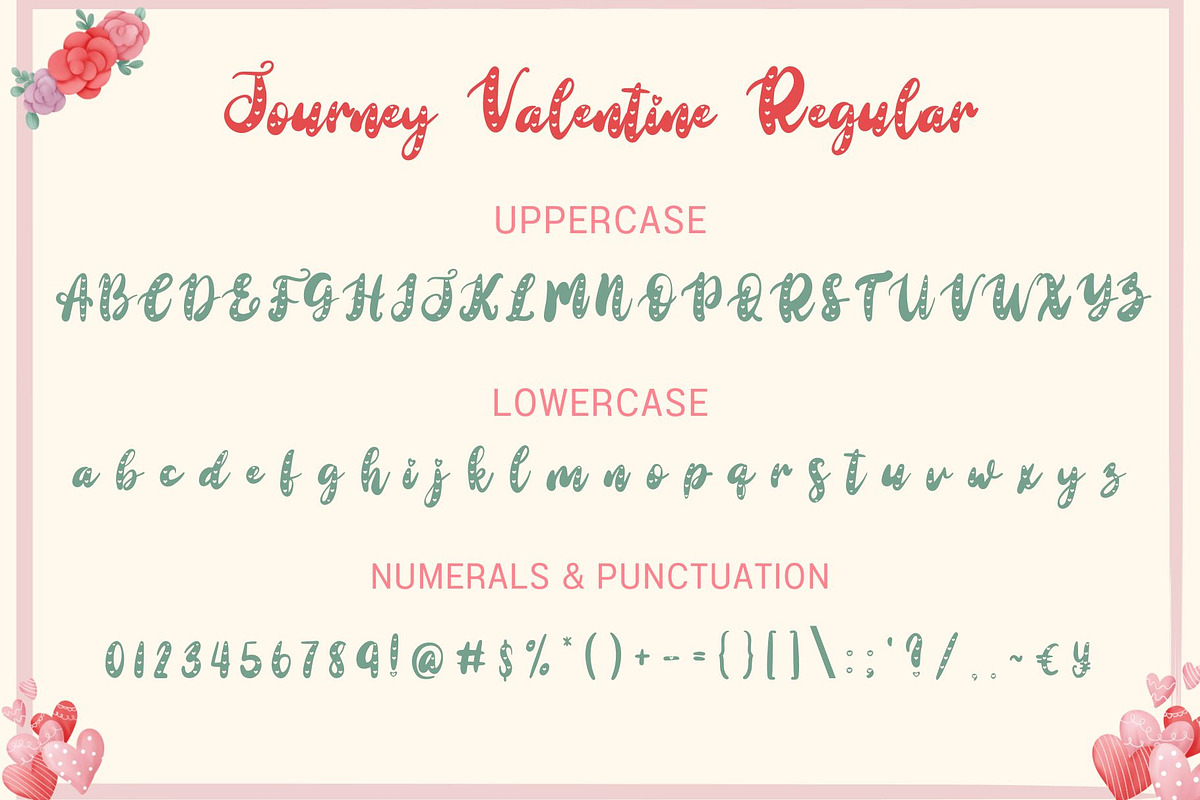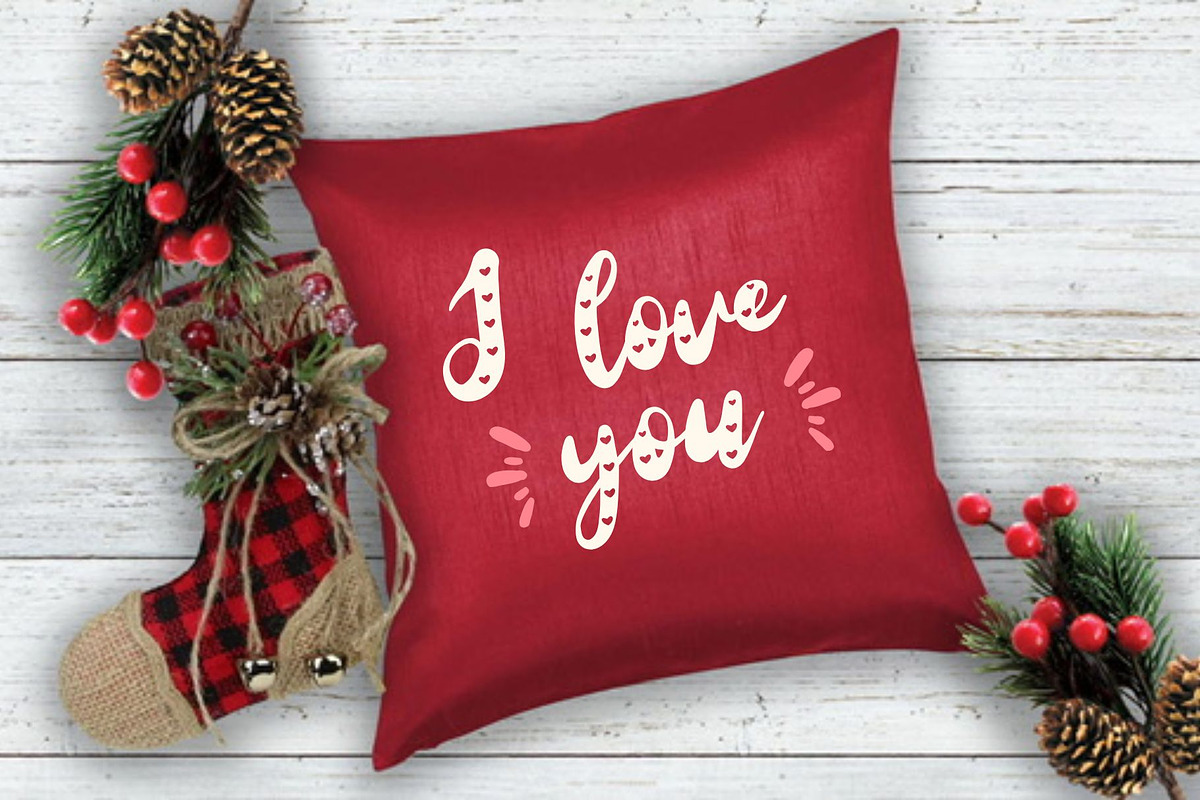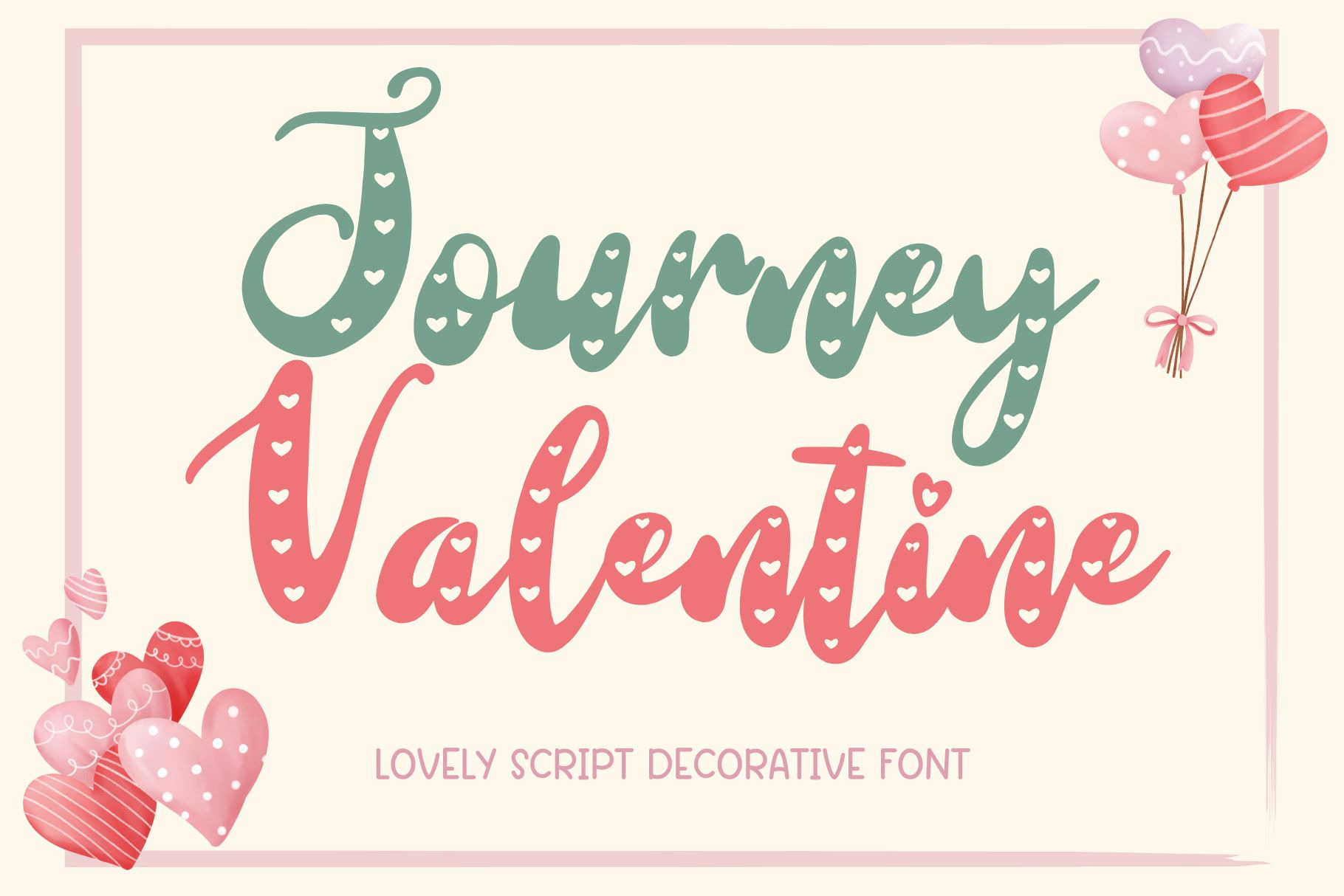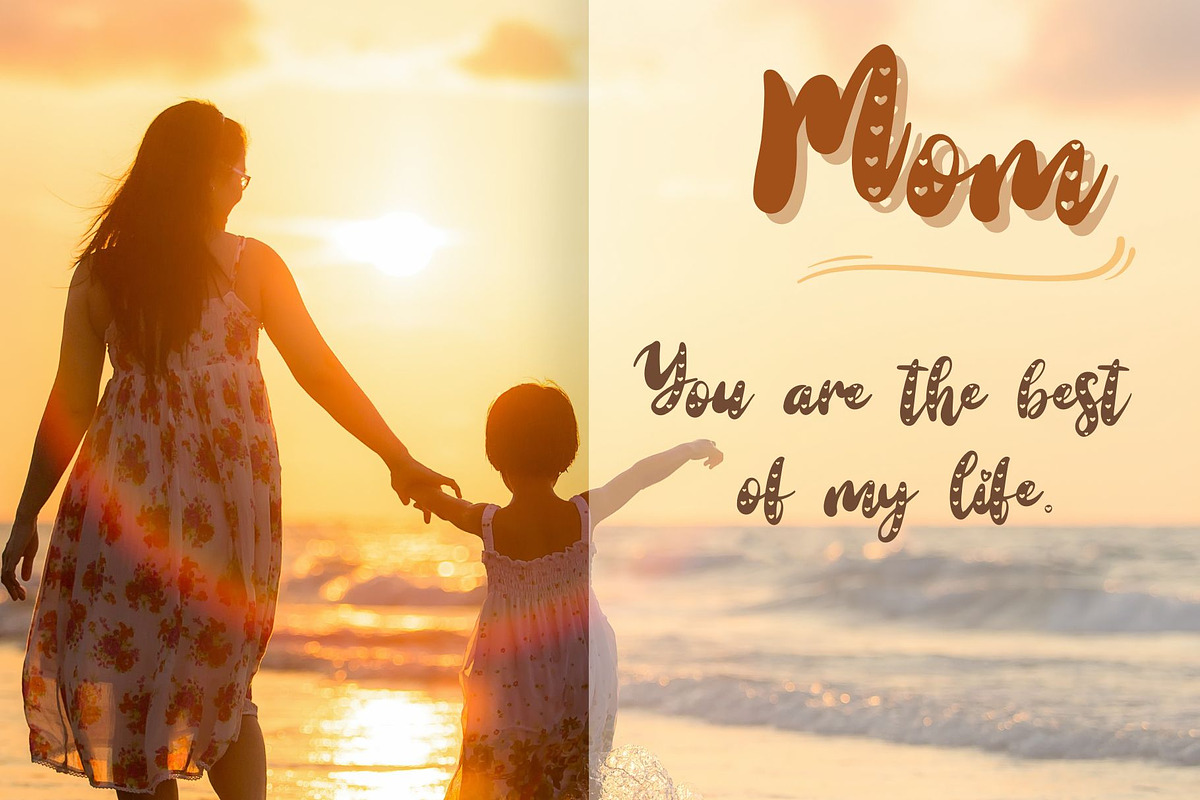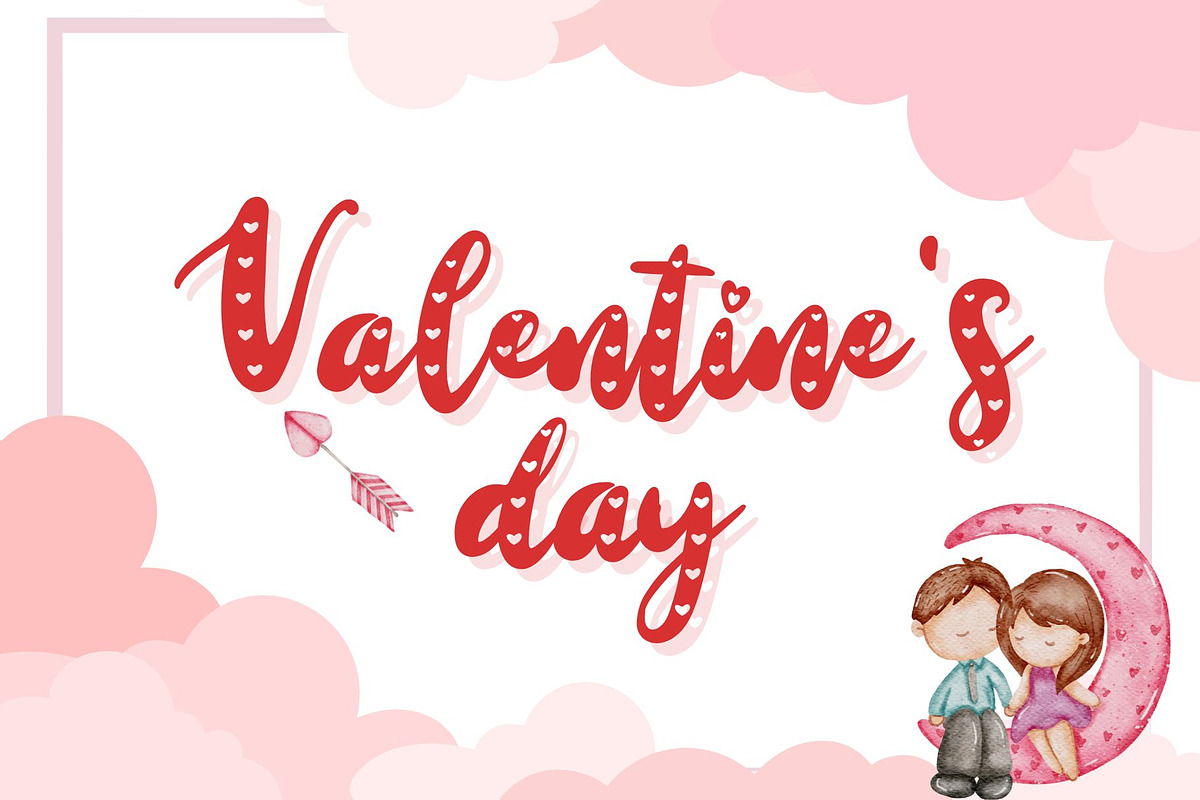
Journey Valentine – Cute Script Font
Journey Valentine is a cute and lovely script display font decorated with tiny heart details. This font combines a sweet handwritten style with playful heart accents, perfect for romantic and heartfelt designs.
Journey Valentine is ideal for:
- Valentine’s Day designs & love quotes
- Romantic cards, posters & social media graphics
- Mom, family & relationship quotes
- Pillows, mugs, tote bags & t-shirts
- Stickers, sublimation & Cricut projects
With its smooth curves and charming heart pattern, Journey Valentine adds warmth, cuteness, and emotional charm to both digital and printed creations.